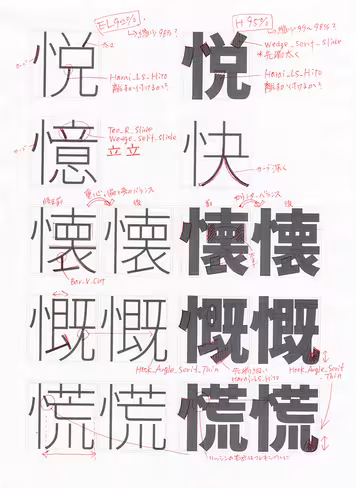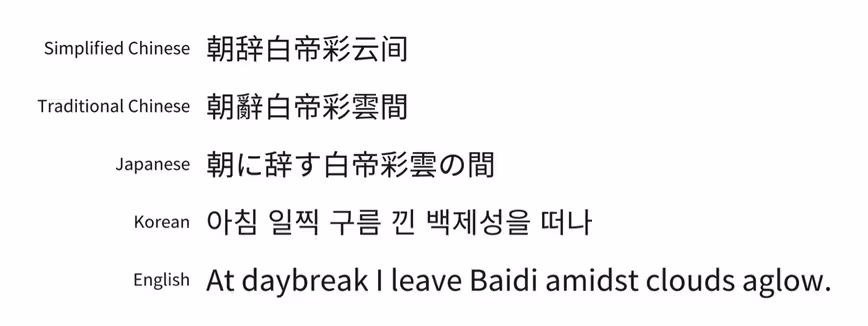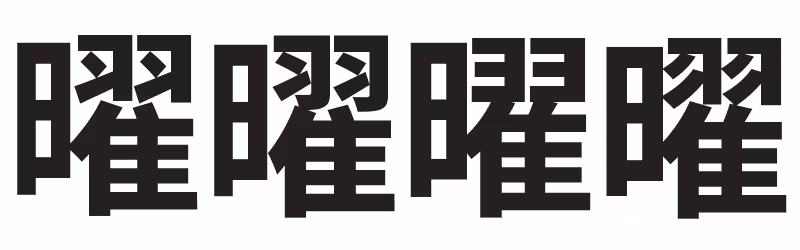
Adobe and Google debut open-source typeface family spanning Chinese, Japanese and Korean to serve one-quarter of the world’s population
Adobe has joined forces with Google to release a new set of Asian OpenType fonts that span the Chinese, Japanese and Korean languages. The Adobe font, named Source Han Sans, is a new open source offering for the company’s Pan-CJK typeface family.
Google is simultaneously releasing its own version of this font under the name Noto Sans CJK as part of a plan to build out its Noto Pan-Unicode font family. Both sets, developed in collaboration, are identical except for the name and will serve 1.5 billion people — roughly a quarter of the world’s population.
The new typeface family is available in seven weights, supporting Japanese, Korean, Traditional Chinese and Simplified Chinese, all in one font. It also includes Latin, Greek and Cyrillic glyphs from Adobe’s Source Sans family, according to an Adobe blog post and a Google blog post describing the massive release.
multi-language-sample“The design is relatively modern in style, but it has simple strokes and is monolinear so it makes text clear and readable on small devices such as tablets and smartphones,” said Nicole Minoza, Adobe’s product marketing manager.
“Because it’s a sans serif typeface, it’s a workhorse font — good for a single line of text or a short phrase or something you might see in a software menu, as well as longer strings of text that would appear in an ebook or a printed publication.”
Source Han Sans is available in weights spanning ExtraLight, Light, Normal, Regular, Medium, Bold and Heavy. Heavy and ExtraLight were designed by hand, however the middle weights were created via software interpolation, Adobe said. Overall, Adobe is releasing 42 fonts, taking into account seven full font weights and region-specific subsets for screen and print.
Noto Sans CJK is also provided in seven weights: Thin, Light, DemiLight, Regular, Medium, Bold, and Black, according to Google’s blog post.
Each font weight in the family has a total of 65,535 glyphs (the maximum number of characters supported in the OpenType format), and the entire family contains just under half a million total glyphs.
sketchOriginal sketch by type designer Ryoko Nishizuka, who designed the new font.
Open source
This project, four years in the making, is the result of a unique international collaboration among five companies including Adobe and Google in addition to type foundries in Japan, China and Korea. This marks the first time a typeface family of this magnitude has been offered via an open source license and made available to designers, developers and general users.
“Not only are the open source fonts free, but users can extend and modify them,” Minoza said. “They would have the right to add Vietnamese characters, for example. Hardware and software manufacturers can install the fonts on their devices. There’s a really big audience and the licensing rights for open source makes it good for device manufacturers.”
Pan-CJK-poster-modifiedAn early draft of a Kanji character.
Discussions around creating a Pan-CJK font started about 15 years ago at Adobe, but the company couldn’t get beyond the overall cost in terms of time and resources.
With this joint project, Adobe was able to contribute its design, technical skill, in-country type experience, coordination and automation, while letting Google take control of the logistics for project direction, defining requirements, in-country testing of resources and expertise and funding.
“Adobe has a depth of knowledge and skill in not just building high quality fonts but in building fonts for CJK. Google wants to create the best solution for our users and so working with Adobe was a natural choice,” said Stuart Gill, tech lead and manager of Google’s Text and Font team.
directionsModifications made to some of the characters to improve quality.
Design logistics
To make sure the font was authentic for native readers, Adobe sought expertise from foundries such as Iwata Corp. to expand the Japanese glyph selection, Sandoll Communication, designer of Korean Hangul (the Korean language native alphabet) and Changzhou SinoType, Adobe’s longtime collaborator in China.
Each foundry was assigned a different task for a unique contribution to the project. Said Minoza, “Iwata fleshed out the original Japanese design, which was provided to our other partners. Sandoll created the Hangul characters from scratch — and they needed to make sure they harmonized with the other characters as well as with the Latin characters — and SinoType not only had to expand the Chinese glyph sets but they had to analyze each of the glyphs to make sure they satisfied regional considerations.